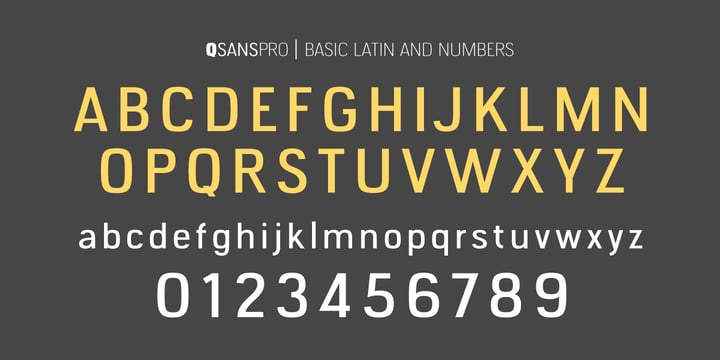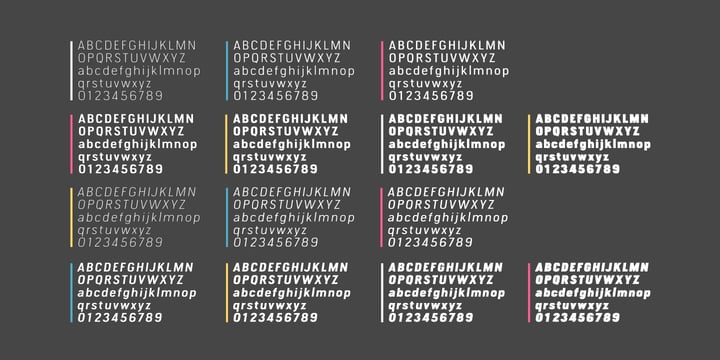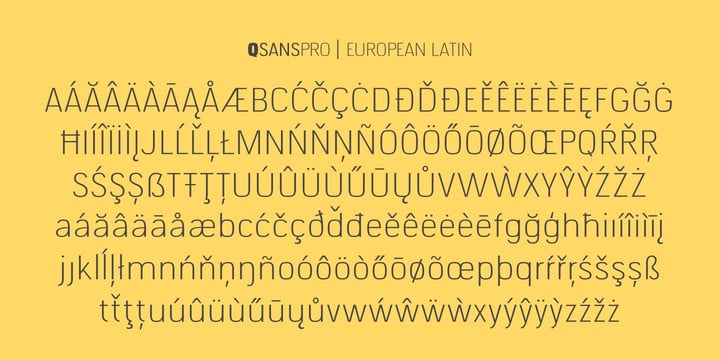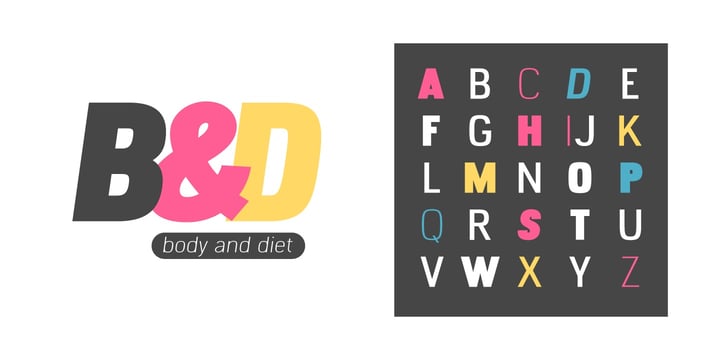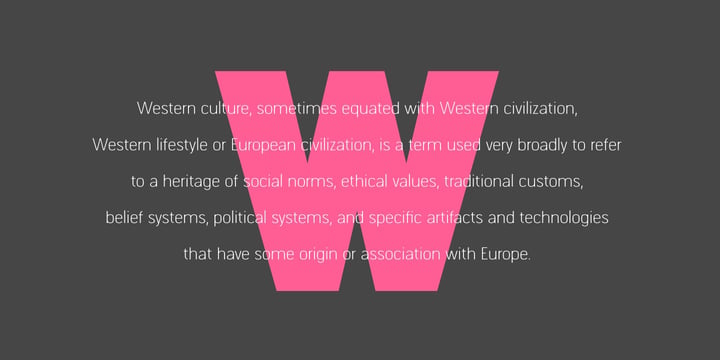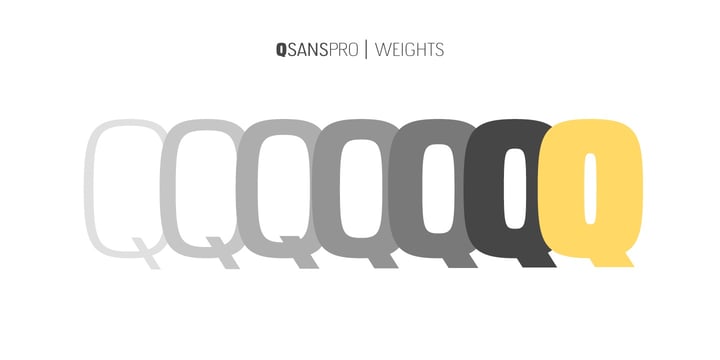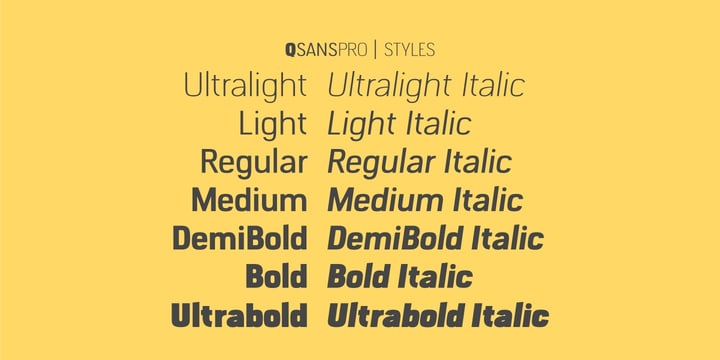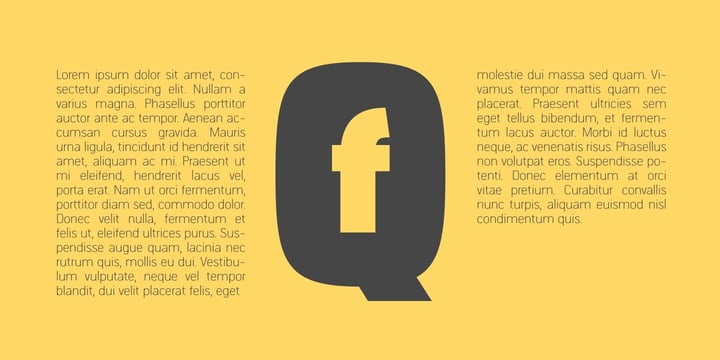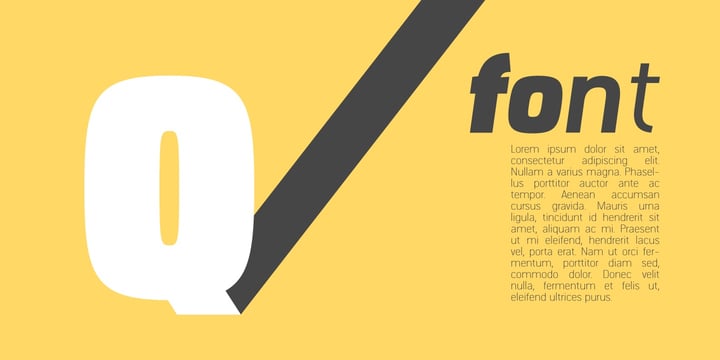
Essential Sans
Essential Sans is a versatile bundle of clean, modern sans serif fonts designed for everyday creative work. Each font stands strong on its own, offering a unique minimalist style perfect for branding, editorial design, social media, packaging, logos, and more. From sleek and contemporary to bold and expressive, this collection gives designers a reliable set of high-quality sans serif fonts for a wide range of projects.